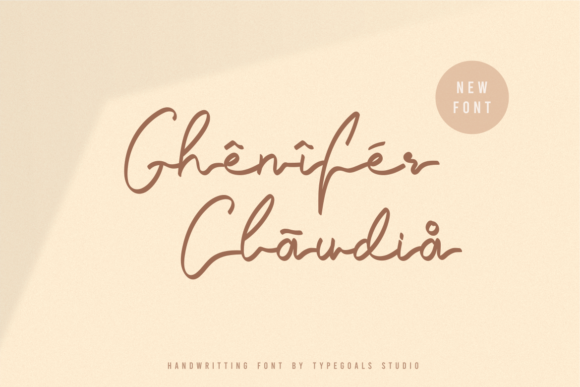
Behold, the enchanting Ghenifer Claudia Font, a script font that weaves a spell of elegance and sophistication upon your designs. Its delicate strokes, reminiscent of a flowing river, infuse your creations with a sense of grace and fluidity. Crafted with precision by the skilled artisans at Typegoals, Ghenifer Claudia is the embodiment of beauty and functionality.
Immerse yourself in its captivating charm and let your imagination soar as you explore the endless possibilities it offers. From wedding invitations that exude romance to social media posts that radiate personality, Ghenifer Claudia effortlessly elevates your words into visual masterpieces. Its allure extends to stationary art, where its sweeping curves and intricate details transform ordinary notes into cherished keepsakes.
With Ghenifer Claudia as your creative companion, you possess the power to captivate and inspire. Its thin, graceful letters dance across the page, inviting your readers on a journey of visual delight. Experience the joy of crafting designs that resonate with your audience, leaving an indelible mark on their hearts and minds.